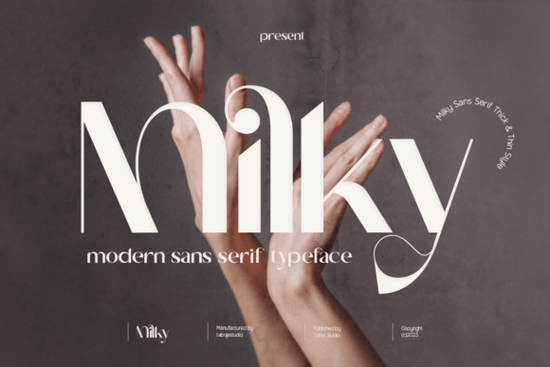
If you're looking for a modern sans serif font that balances bold presence with delicate detail, the Milky Font might be exactly what your next project needs. Designed with alternating thick and thin strokes in every character, it brings visual rhythm and contemporary flair to headlines, logos, packaging, and more without feeling overly ornate or hard to read.
What makes Milky stand out is how it merges strength and subtlety in a single typeface. Unlike many display fonts that lean heavily into either minimalism or extravagance, Milky finds a middle ground: confident enough for branding, refined enough for editorial use, and flexible enough for everything from apparel designs to social media graphics.
Who is this font best suited for?
Milky works especially well for:
- Small business owners creating custom signage, product labels, or storefront branding.
- Print-on-demand sellers designing t-shirts, mugs, or posters where typography carries the message.
- Graphic designers seeking a distinctive yet versatile display font for client projects.
- Crafters and hobbyists using design software for personal or small-scale commercial work.
Because of its high-contrast letterforms, it’s most effective at larger sizes think headlines, hero text, or short phrases rather than body copy. That said, its clean lines keep it legible even when scaled down slightly for things like Instagram captions or product tags.
How do I get the most out of Milky Font?
To fully access all the stylistic options packed into Milky, you’ll want to use design software that supports OpenType features. Programs like Adobe Illustrator, Photoshop CC, InDesign, or CorelDRAW let you explore alternate glyphs, ligatures, and swashes through their Glyphs panel. These subtle variations can add personality to your text without changing the core structure of the font.
For example, swapping in a single alternate character can give your logo a unique twist or help avoid awkward spacing in a wordmark. Just remember: less is often more. A few well-placed alternates usually have more impact than applying them everywhere.
Is Milky Font easy to pair with other typefaces?
Yes its neutral geometry and lack of extreme quirks make it surprisingly adaptable. For contrast, try pairing it with a simple, low-contrast sans serif (like Inter or Helvetica) for body text. If you’re going for a more editorial or fashion-forward look, a light serif such as Playfair Display can complement Milky’s boldness without competing for attention.
Avoid pairing it with other high-contrast or script fonts unless you’re aiming for a very specific, layered aesthetic. In most cases, letting Milky take center stage while supporting it with understated type will yield cleaner, more professional results.
If you’ve been searching for a display font that feels fresh but not trendy, bold but not loud, Milky offers that rare combination of clarity and character making it a reliable choice for creatives who want their words to land with both style and substance.